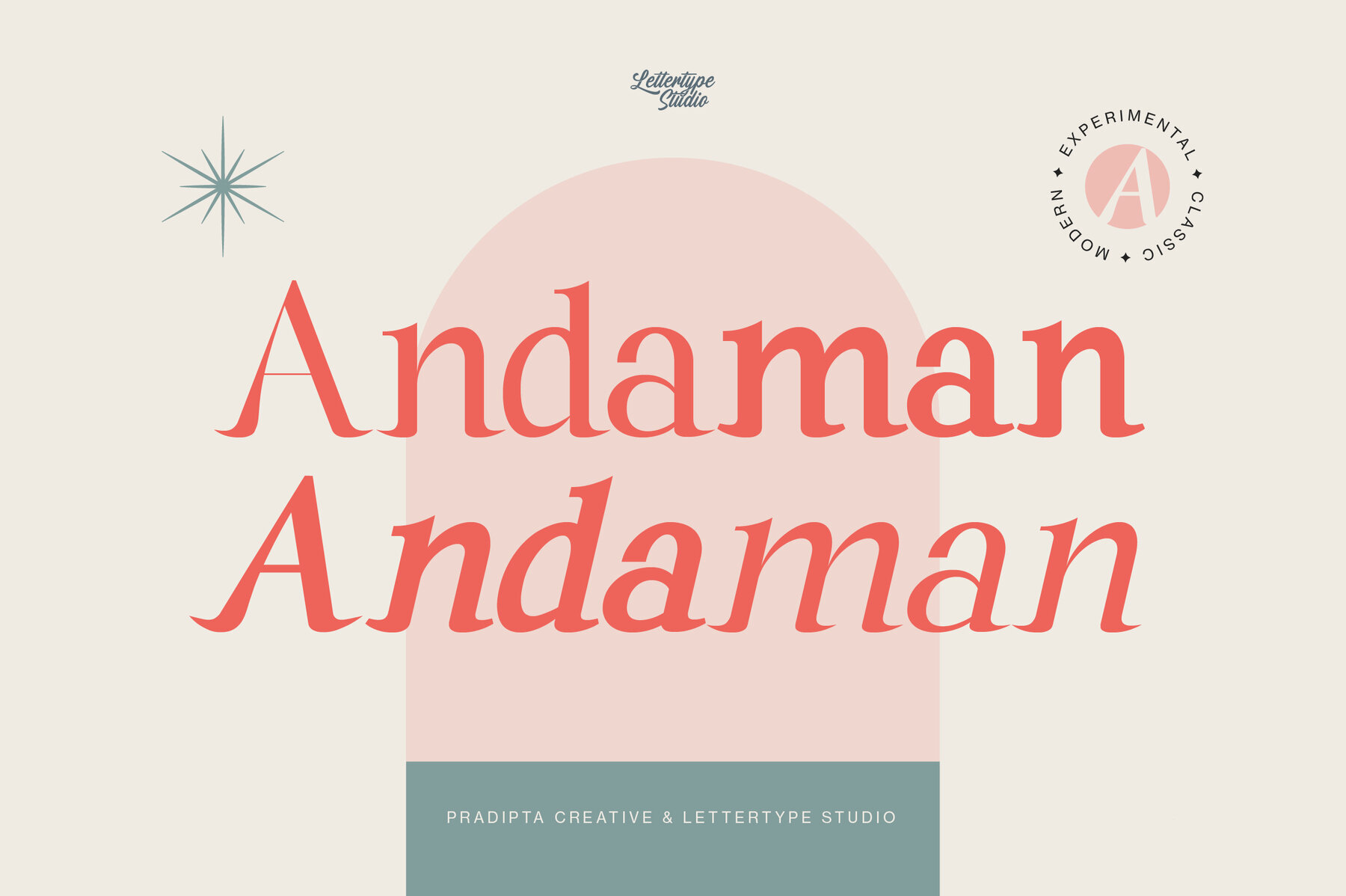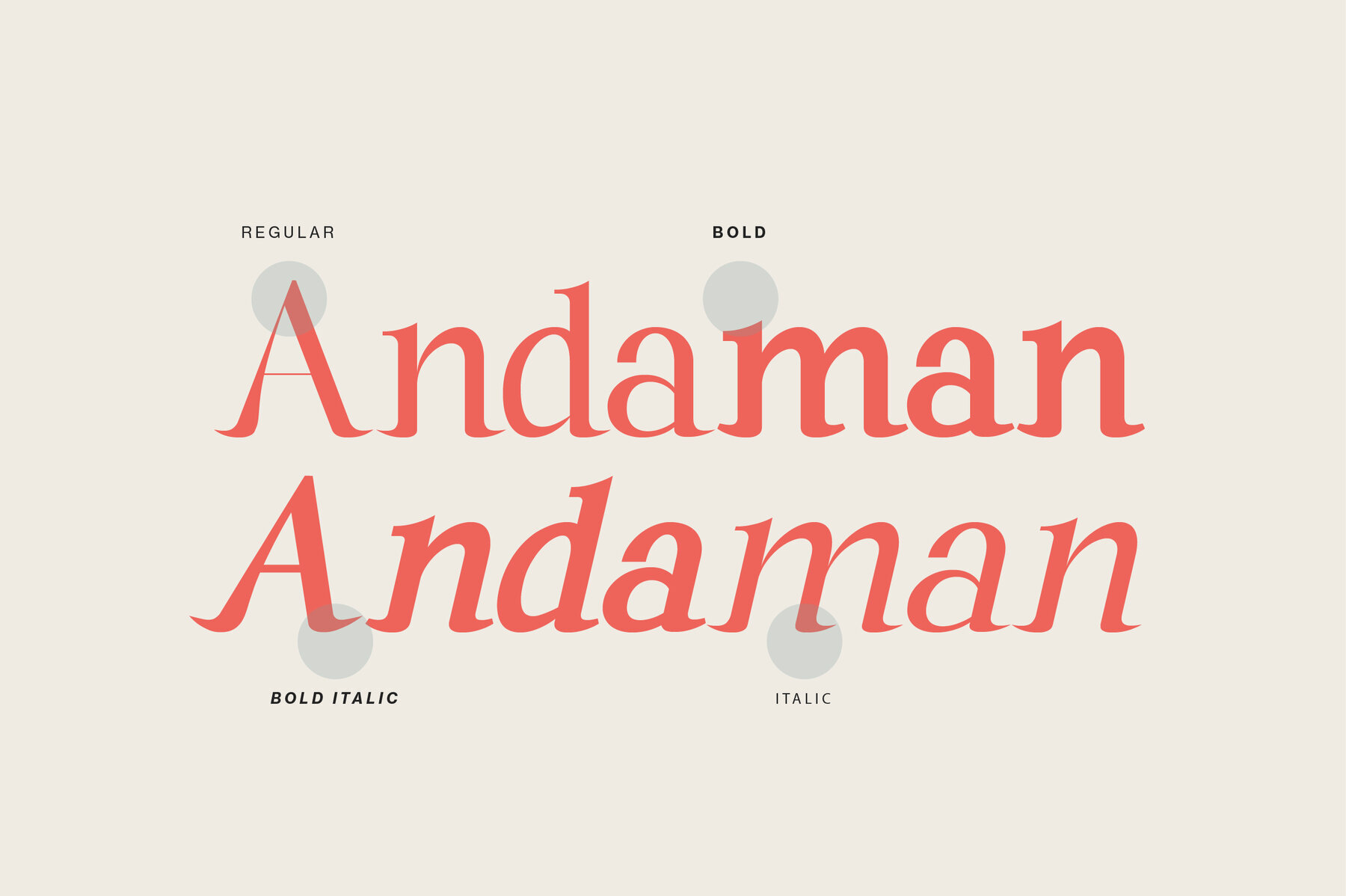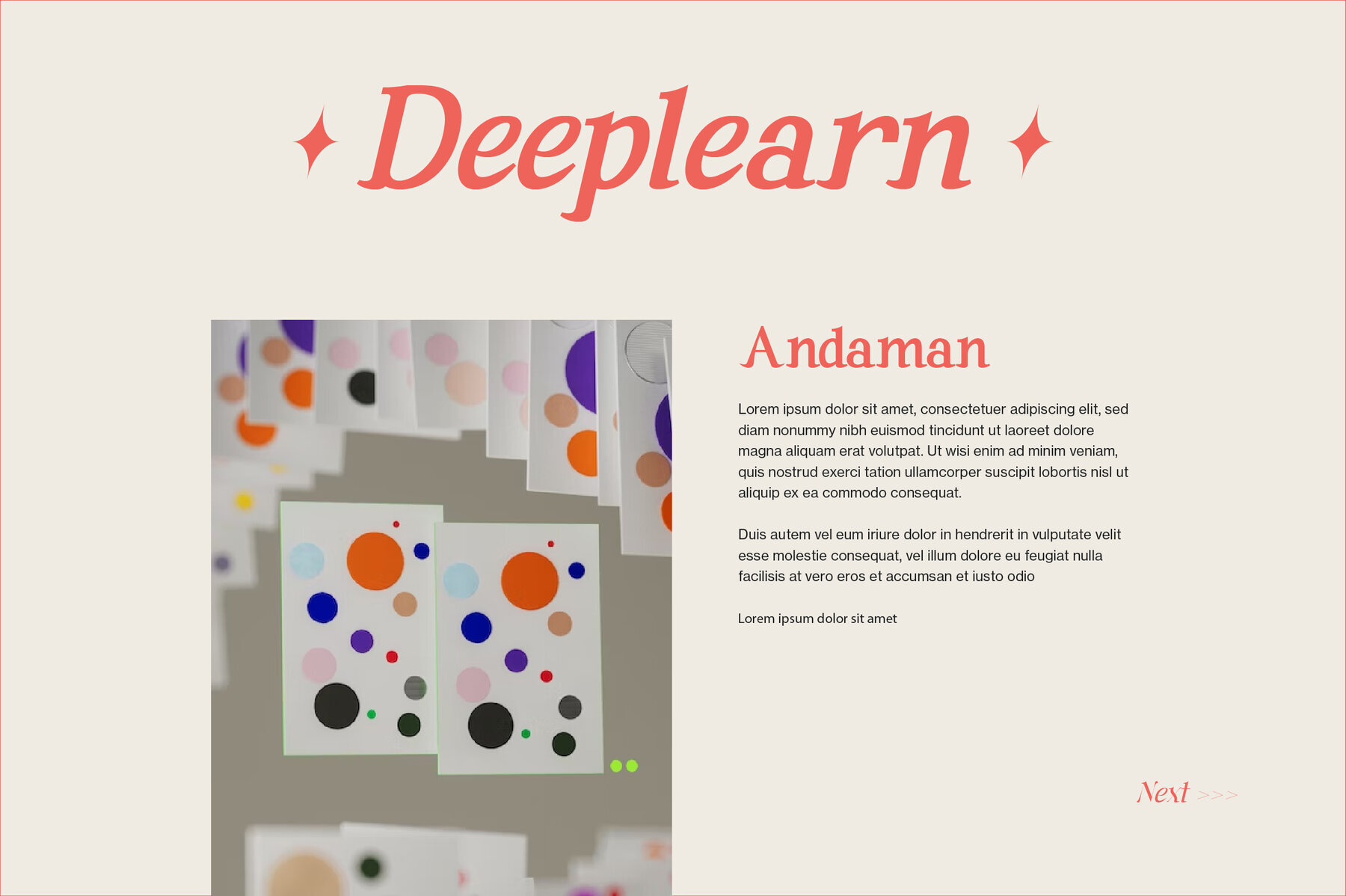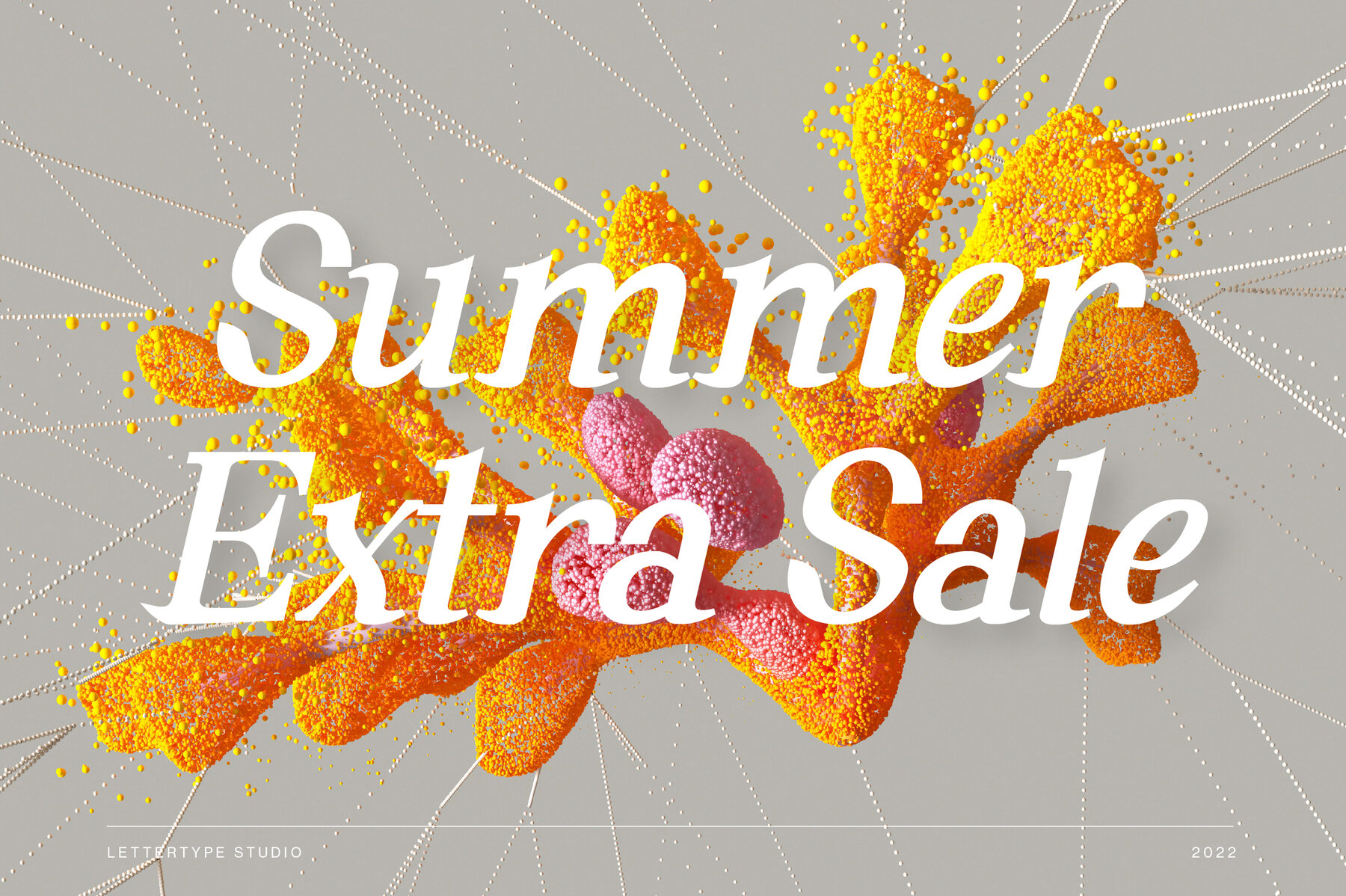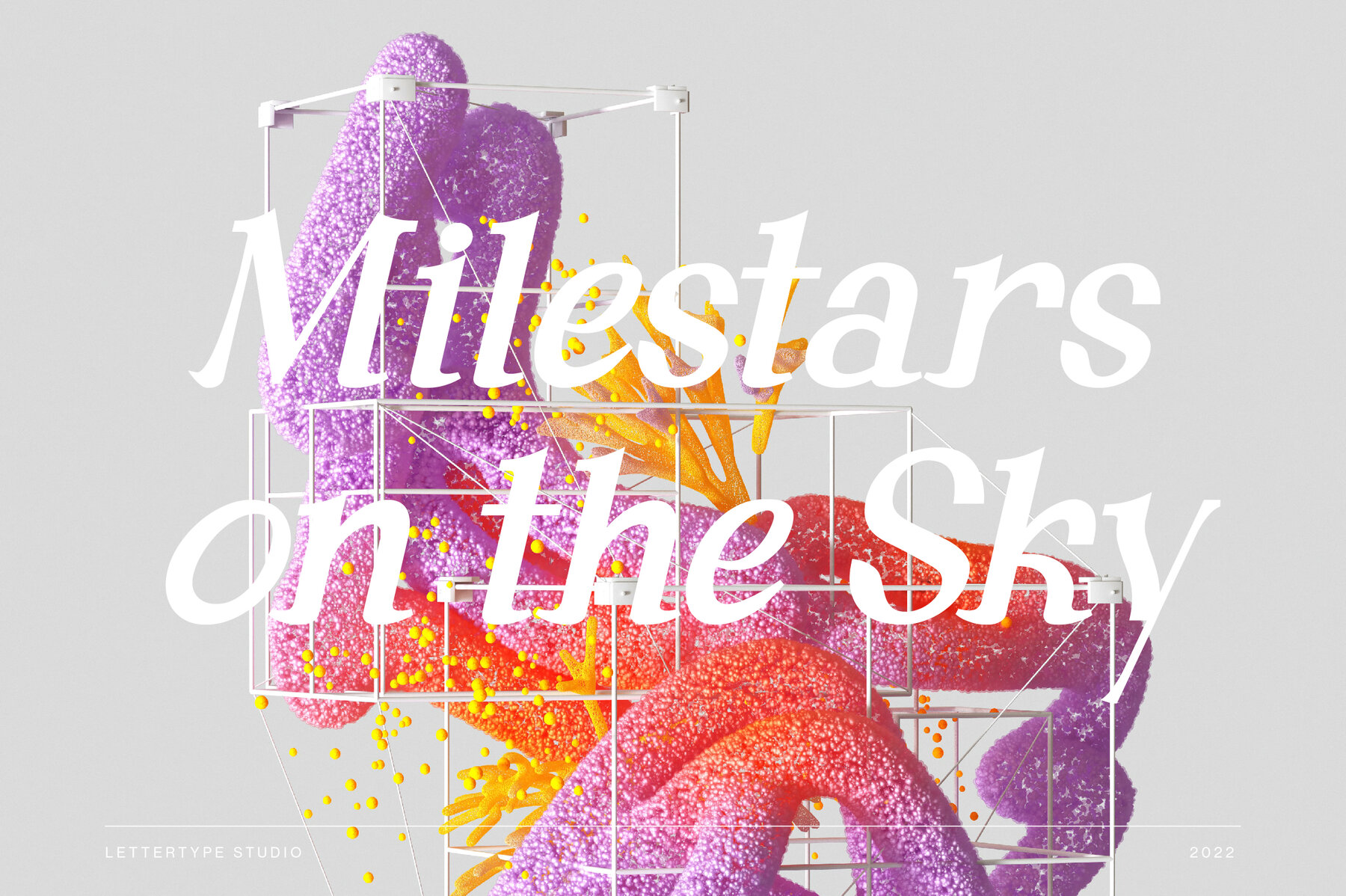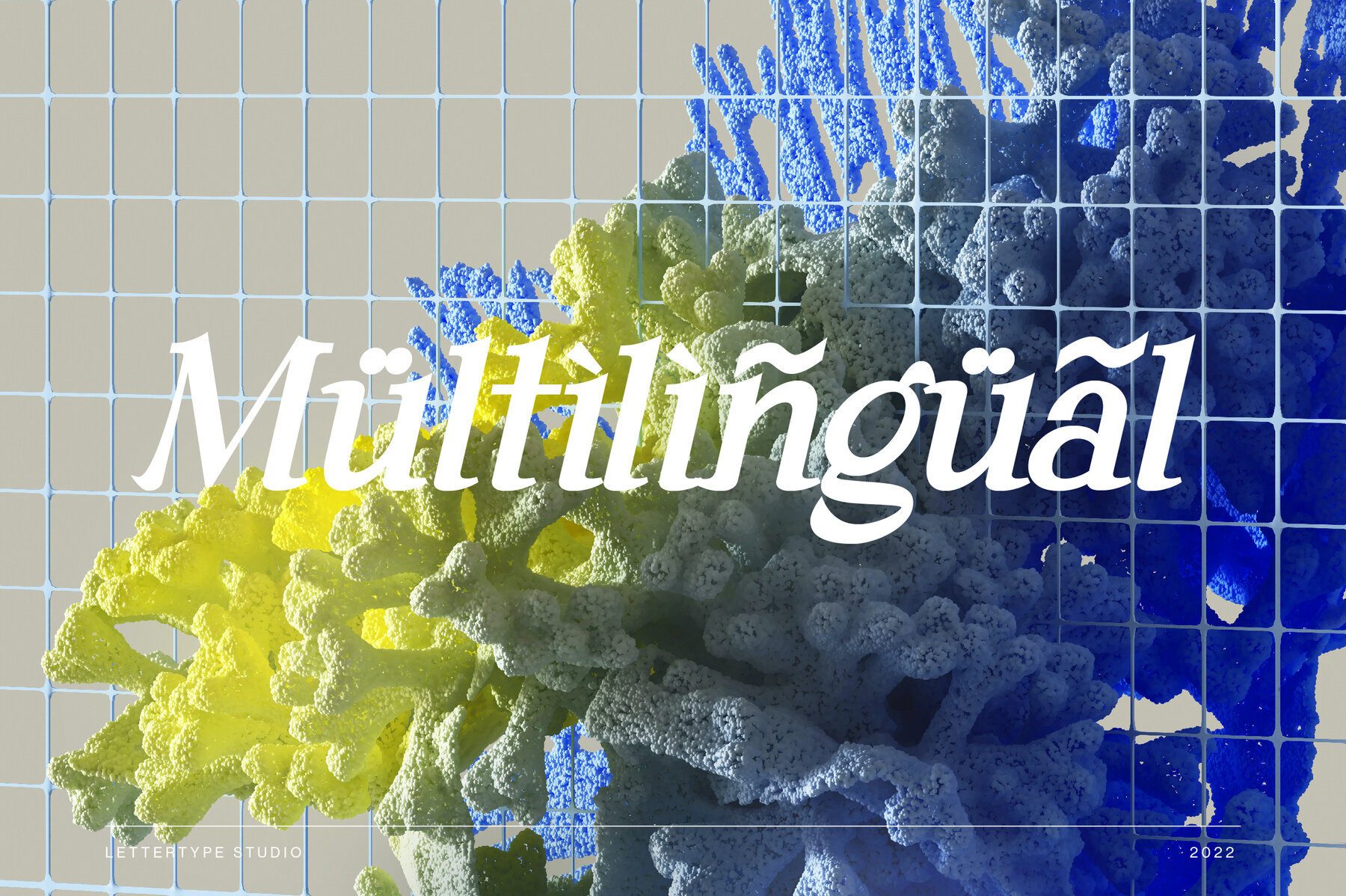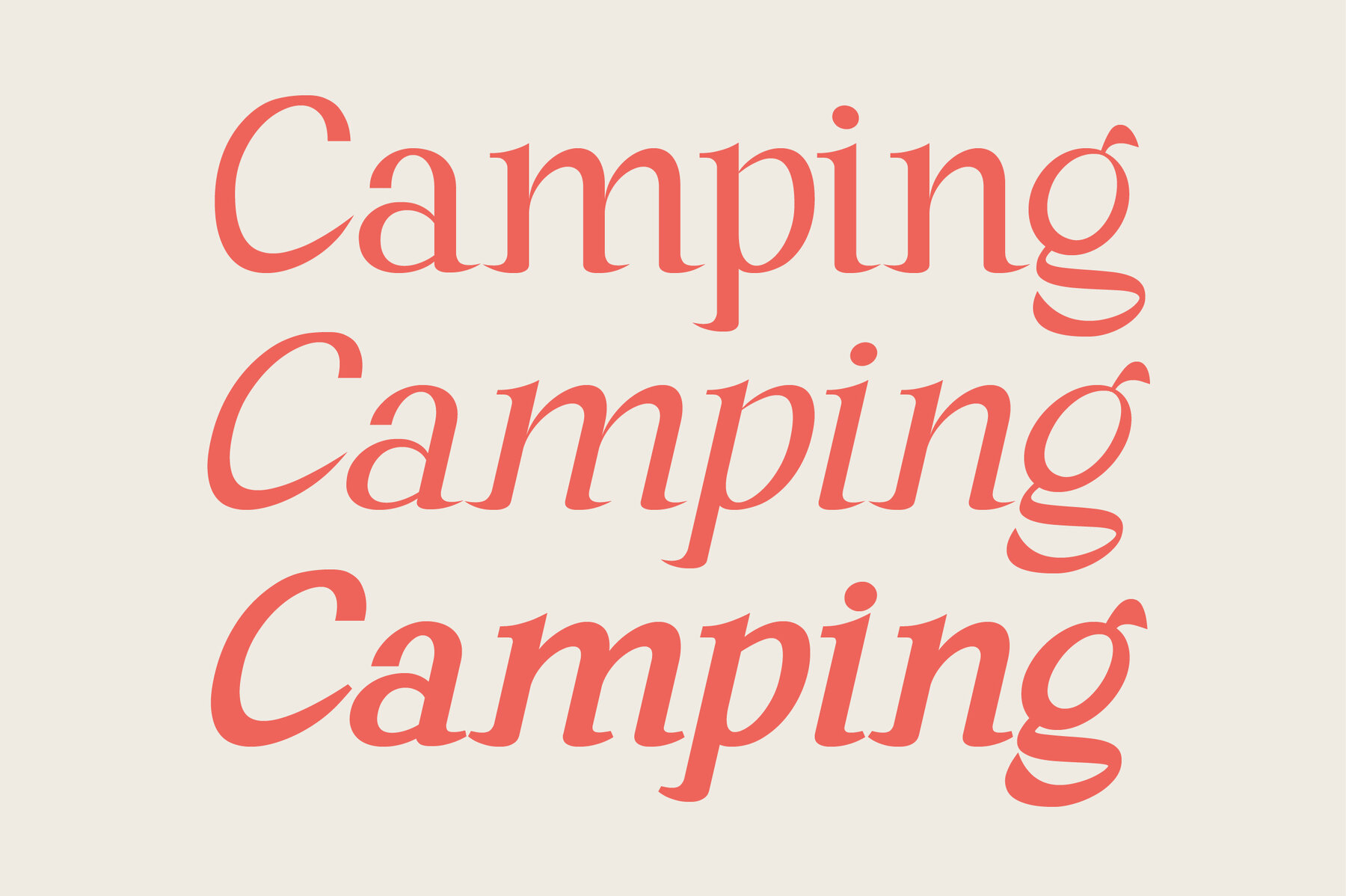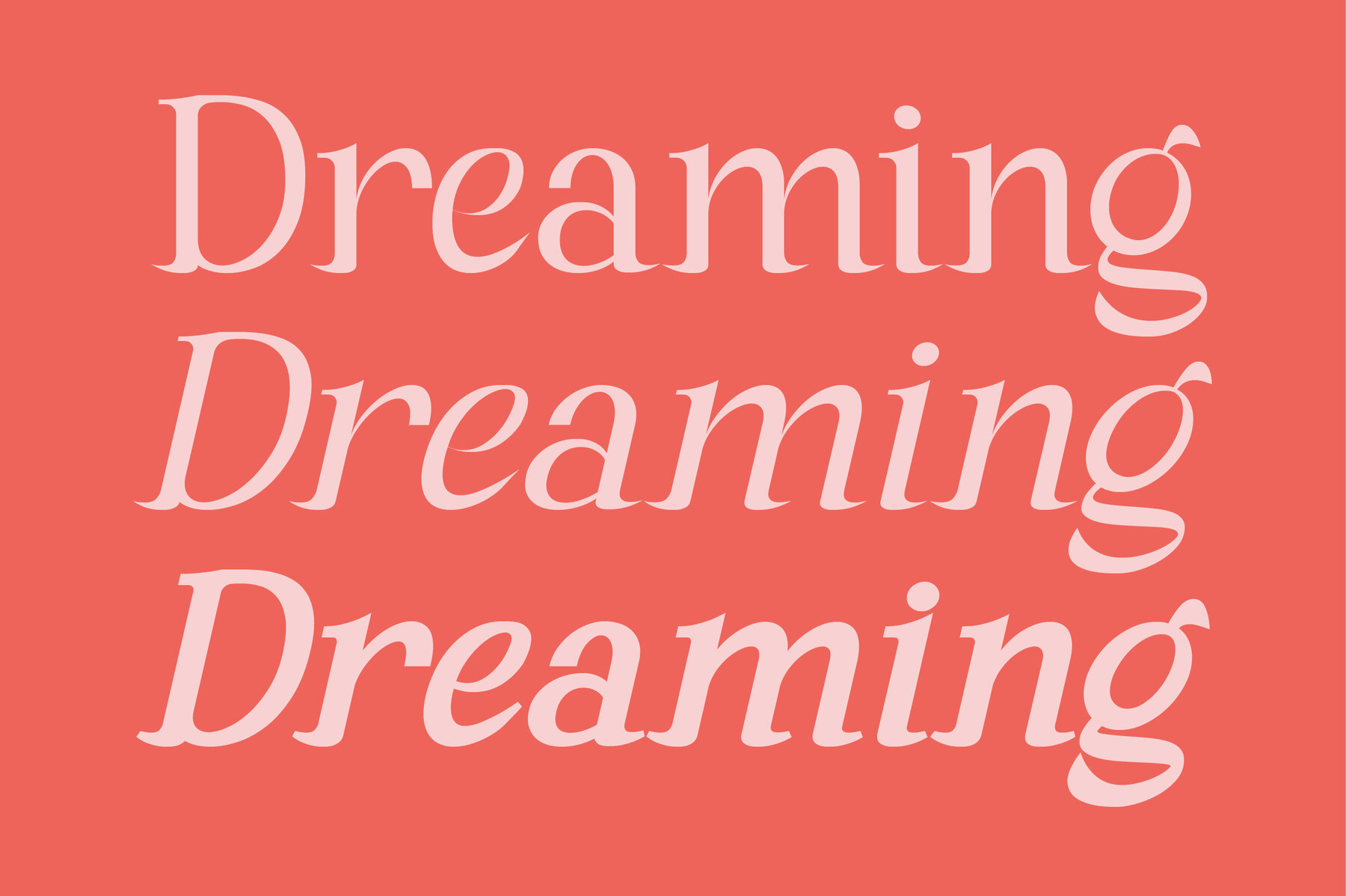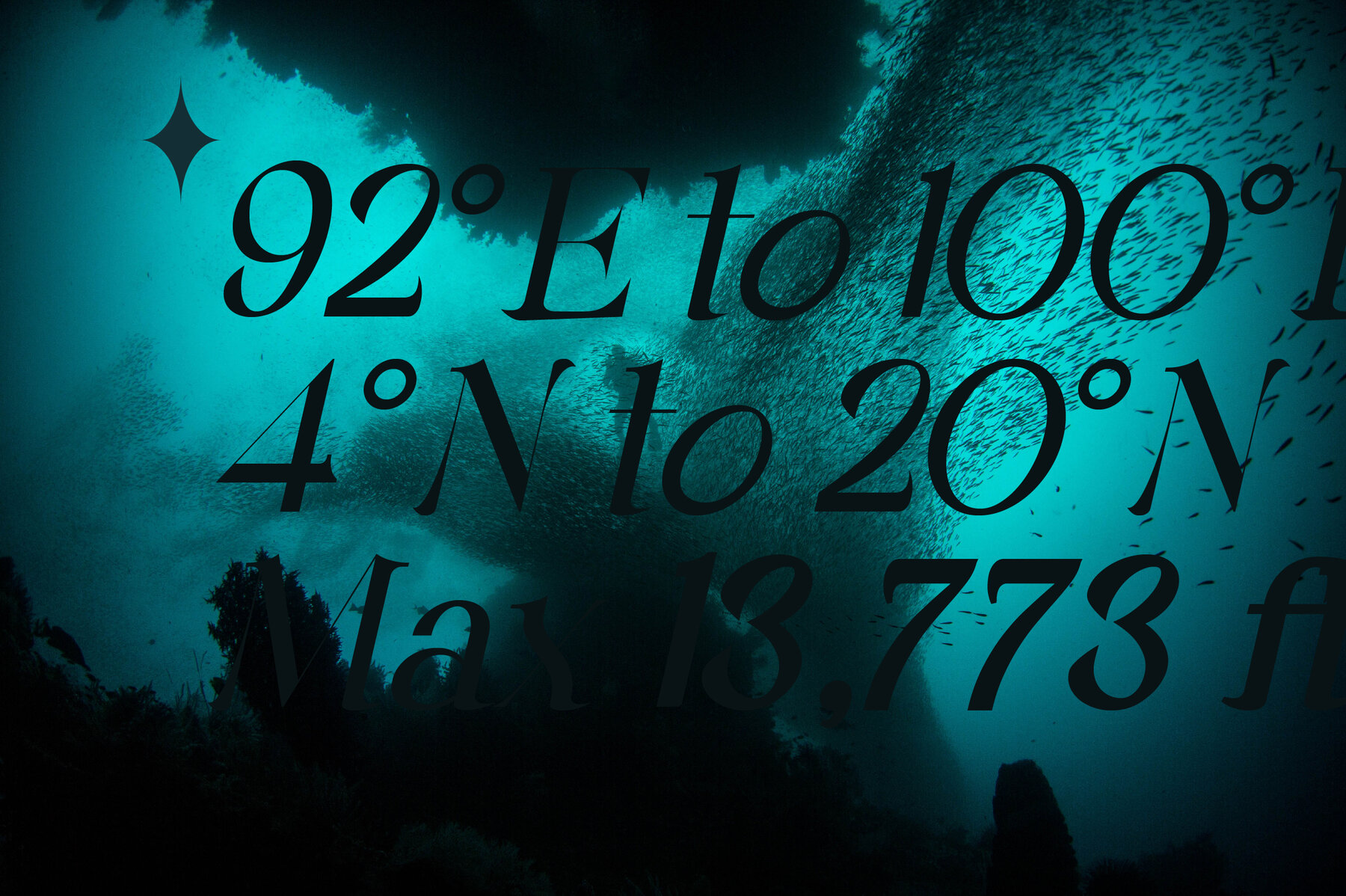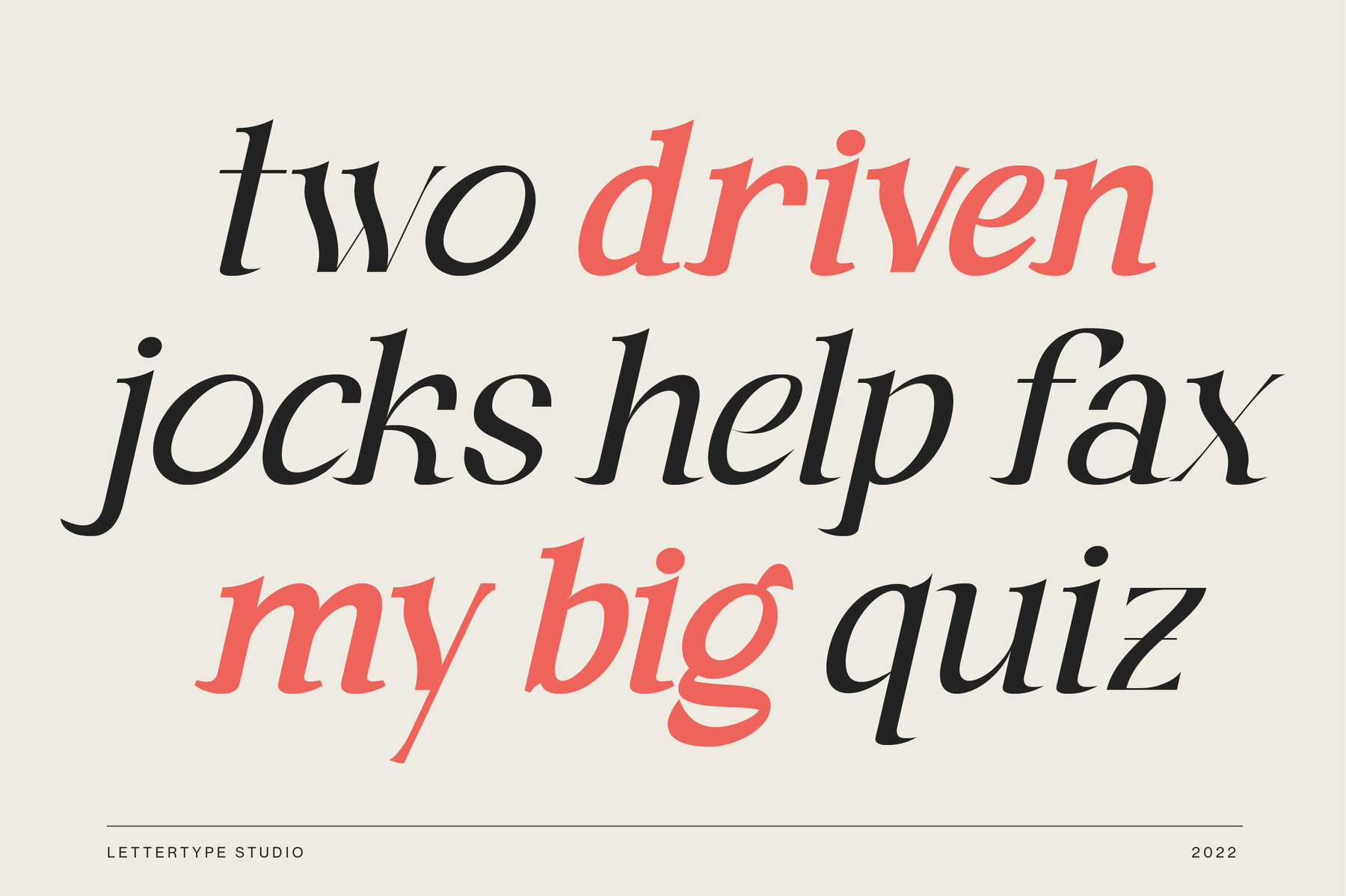
Andaman Font
Discover Andaman, a captivating serif font that blends nostalgia with contemporary design aesthetics. Inspired by the serene beauty of the Andaman Sea, this experimental typeface embodies modern elegance, making it an ideal choice for diverse creative projects. Whether you're designing a logo, crafting a branding identity, or creating standout signage, Andaman offers a versatile and stylish solution. With its abundant stylistic features, Andaman lends a unique flair to wedding invitations, fashion lines, and poster designs. Elevate your projects with this sophisticated typeface, capturing the essence of both classic and modern design sensibilities.Explore the Elegance of Andaman
Features of Andaman